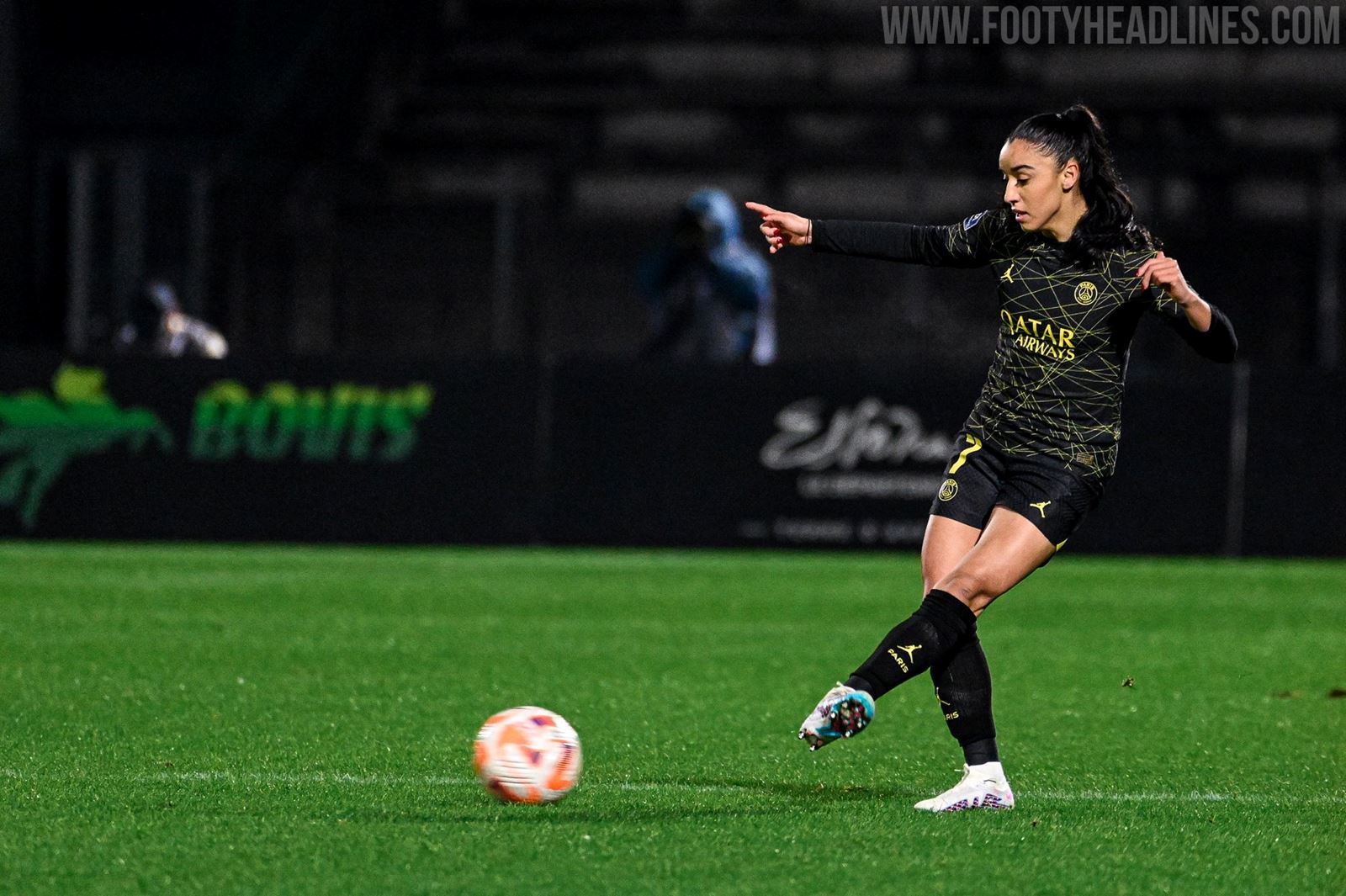
Yet Another One: PSG 22-23 Fourth Kit Font Revealed
As you probably know, PSG will be using a streamlined Ligue 1 typeface during their Ligue 1 matches. Oddly, they also used the standard Ligue 1 font in the friendly match against Ryhaid XI.
It's uncertain when the men's team will debut the font, but it could be in the Champions League match against Bayern if they will wear Jordan kit.
PSG have had more bespoke fonts in the past three seasons than other teams in their whole history
PSG are known for their strong kit font game, having more bespoke fonts in one season than many other teams in one decade.
PSG 22-23 4th Kit Font
This is the new Jordan PSG 4th kit font.
The Jordan PSG 22-23 4th jersey font was created specifically for the 4th kit. It matches the lines design of the kit by having similar line cutouts.
Interestingly, third is already the third bespoke font that PSG have received for this season, showcasing Jordan's and PSG's commitment to uniqueness and exclusivity to the team's image.